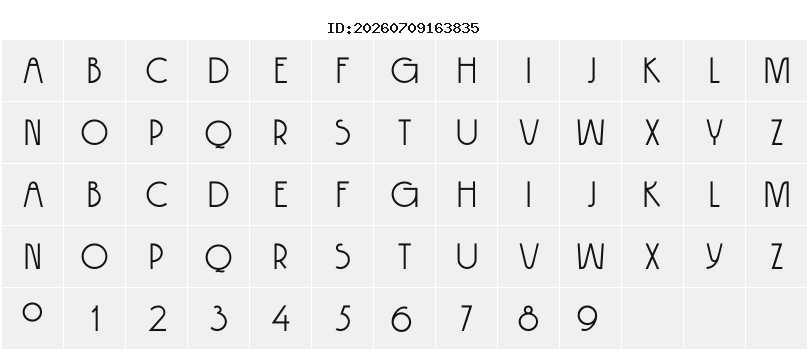
DK Hokitika Preview
• Font Name: DK Hokitika
• Designer: David Kerkhoff
About DK Hokitika.otf
DK Hokitika.otf is a modern, elegant sans-serif font designed for ultimate readability and visual harmony. Perfect for branding, headlines, web design, and print materials.